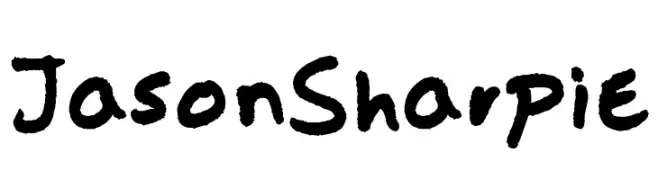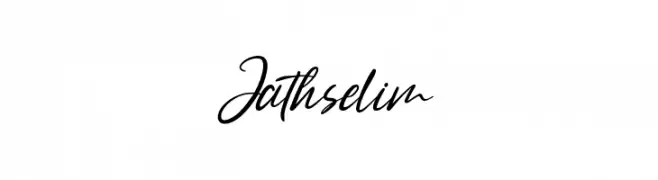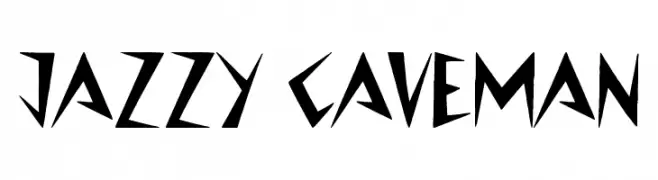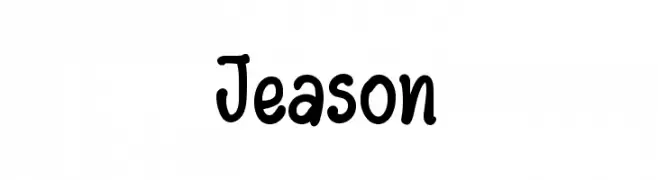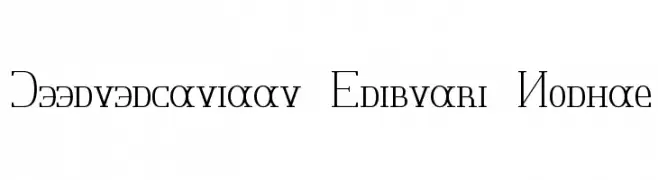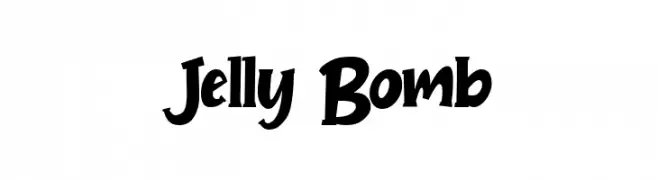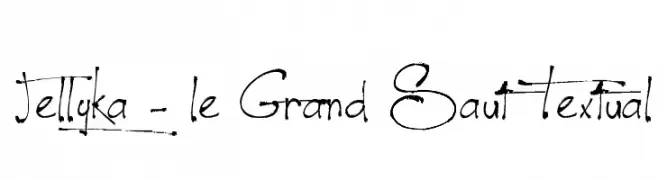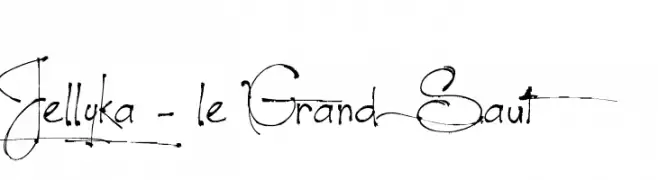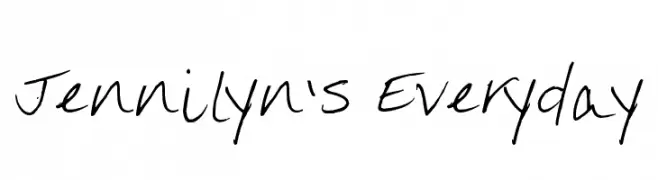
• Japanola Bold
A bold, angular font with a modern twist on traditional calligraphy.
• JasonSharpie
A bold, handwritten font with a casual and playful style.
• Jathselim
A dynamic and fluid script font with elegant, flowing letterforms.
• Jazzy Caveman
A bold, jagged font with sharp angles and an energetic, primitive style.
• Jeason
A playful, bold handwritten font with rounded letterforms.
• Jeernervaniaan Sribnaki Normal
A geometric and artistic font with sharp, angular letterforms.
• Jelly Bomb
A bold, playful font with a whimsical, cartoon-like style.
• Jellyka - le Grand Saut
A whimsical, decorative script font with intricate swirls and loops.
• Jellyka - le Grand Saut Textual
A whimsical, handwritten font with artistic flourishes and dynamic line variations.
• Jennilyn's Everyday
A casual, handwritten font with a natural flow and slight slant.